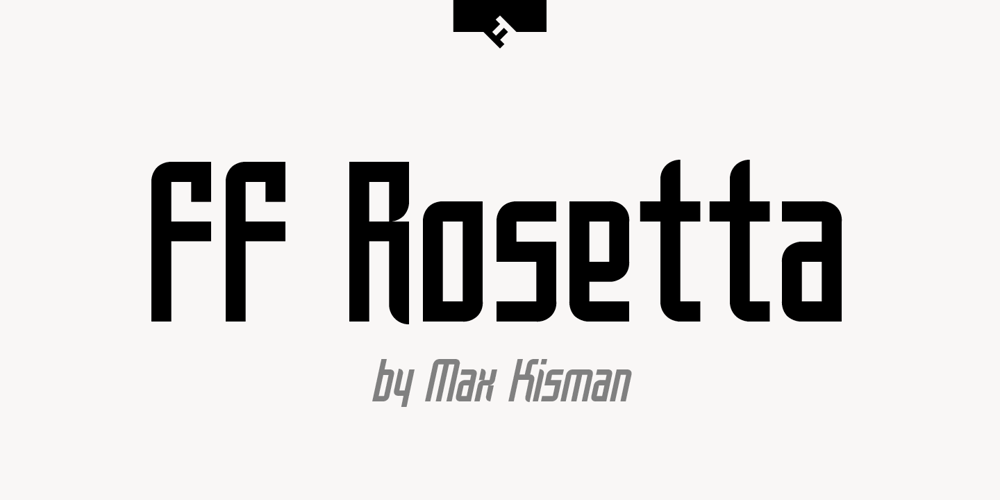
FF Rosetta Font Family was designed by Max Kisman and published by FontFont. FF Rosetta contains 4 styles and family package options. Dutch type designer Max Kisman created this display FontFont in 1991. The family contains 4 weights: Regular, Italic, Bold, and Bold Italic and is ideally suited for advertising and packaging, logo, branding and creative industries, poster and billboards, software and gaming as well as sports. FF Rosetta provides advanced typographical support with features such as ligatures and case-sensitive forms. It comes with proportional lining figures.